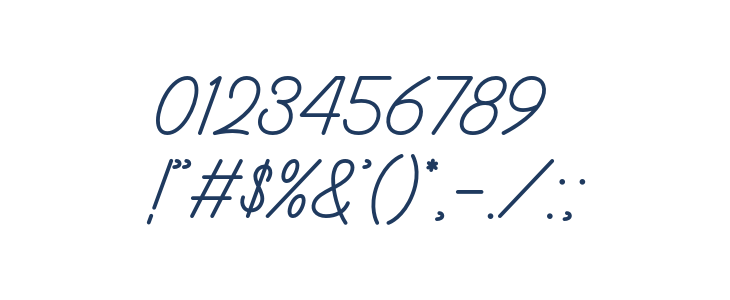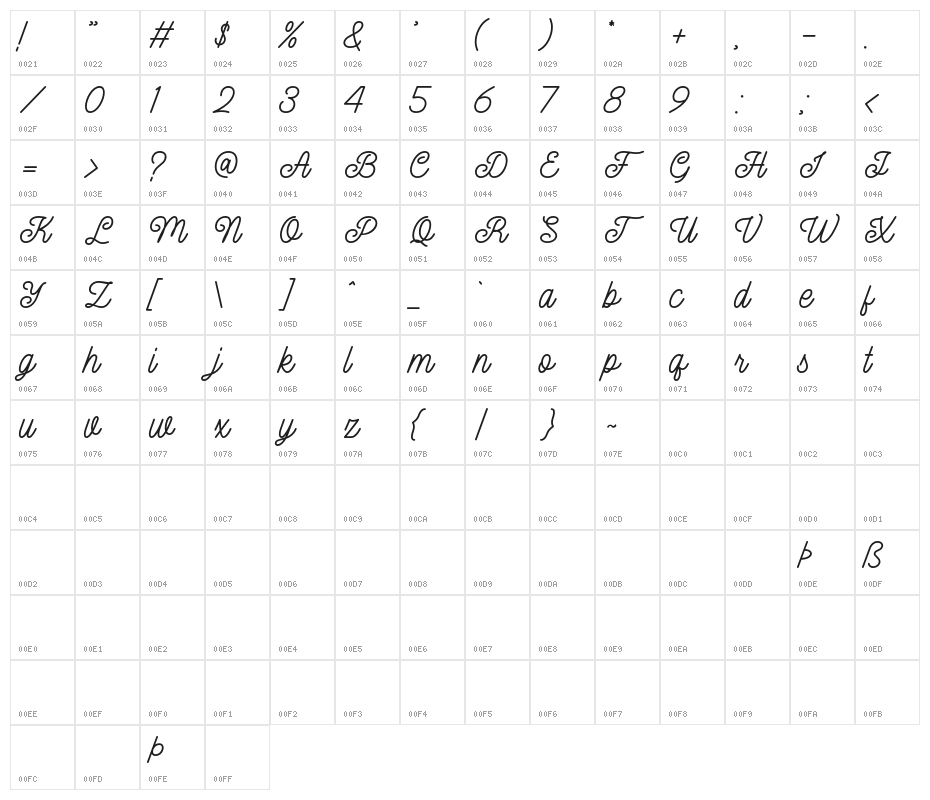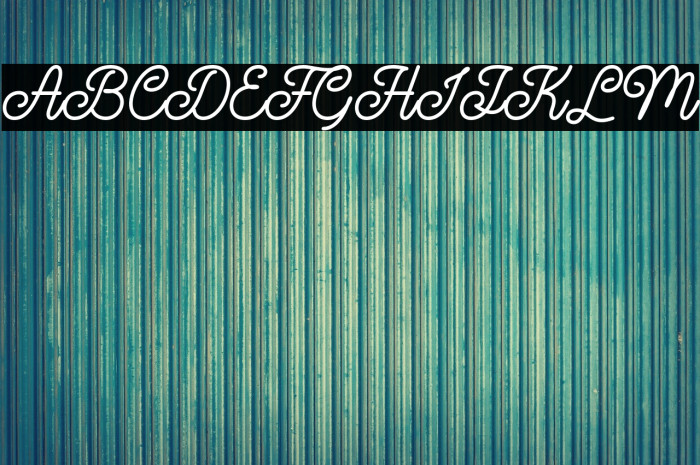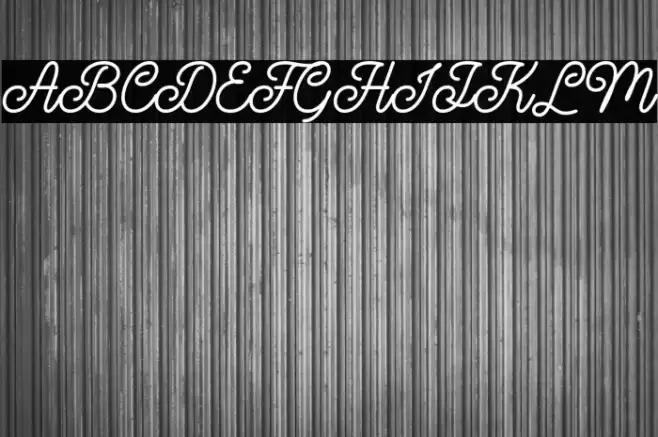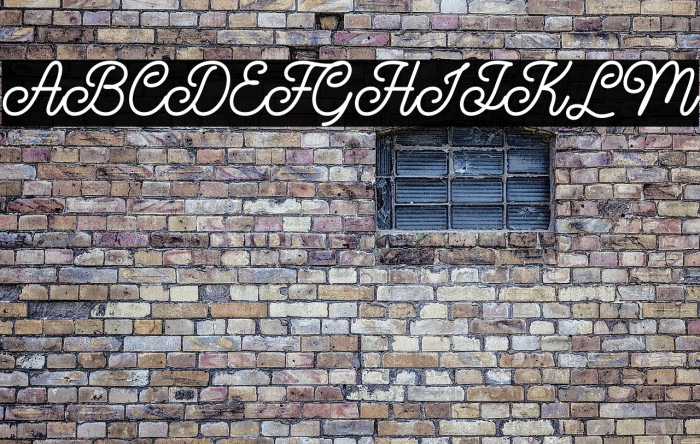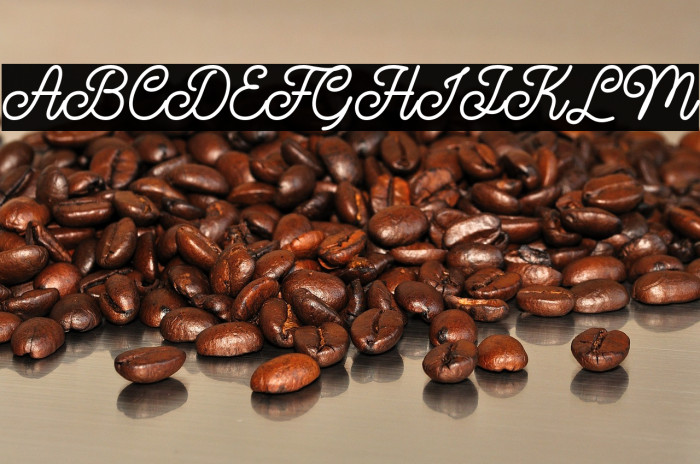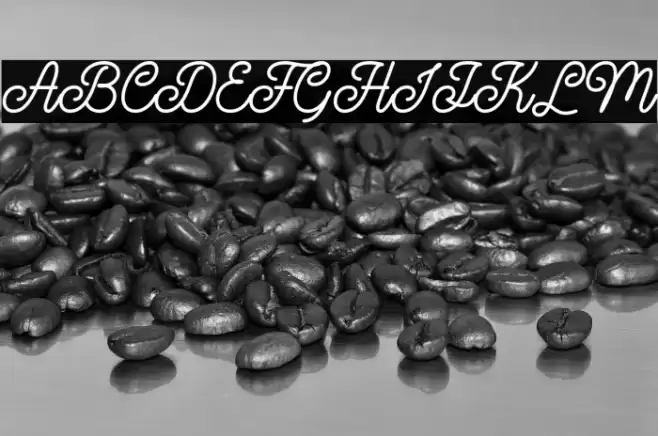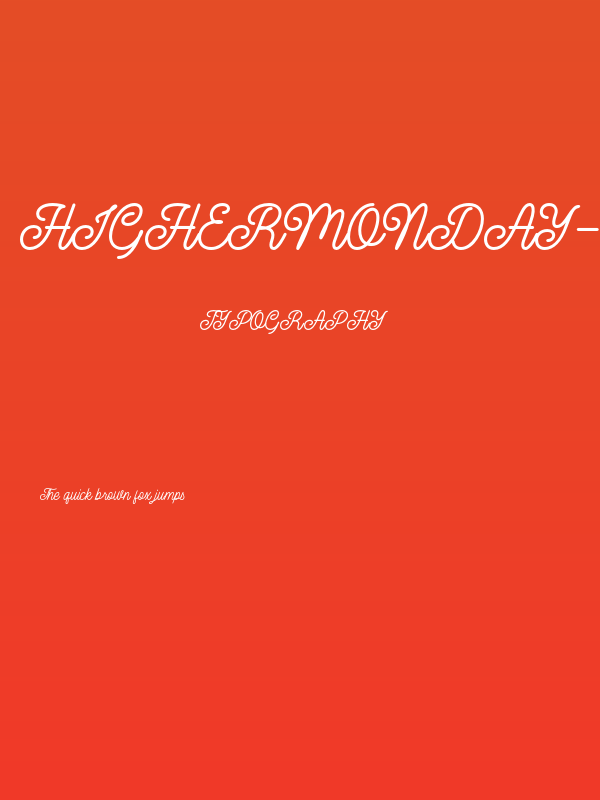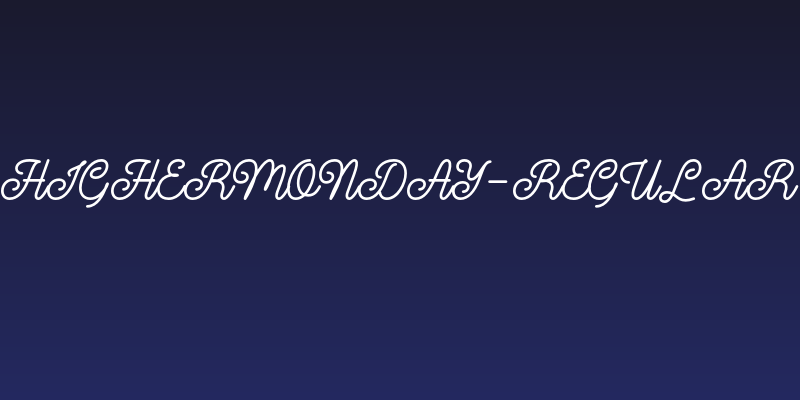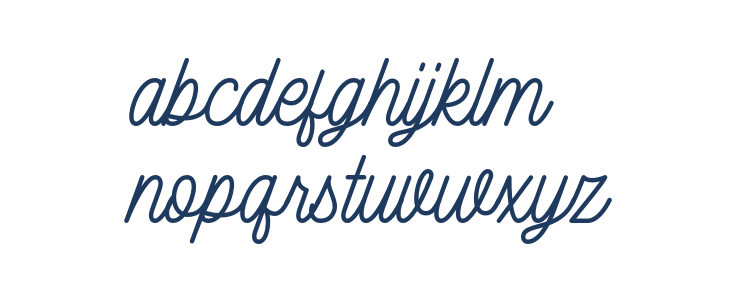
HigherMonday-Regular Font
HigherMonday-Regular Description
This font features a smooth, flowing script style with elegant curves and a handwritten aesthetic. The uppercase letters are slightly more ornate, with subtle flourishes that add a touch of sophistication. The lowercase letters maintain a consistent flow, enhancing readability while retaining a personal, crafted feel. Numbers and special characters are designed to match the overall style, ensuring a cohesive look across all text elements. The font's design is both modern and timeless, making it versatile for various applications.
| Proposed Projects | Ideal for wedding invitations, greeting cards, branding projects, and elegant packaging designs. |